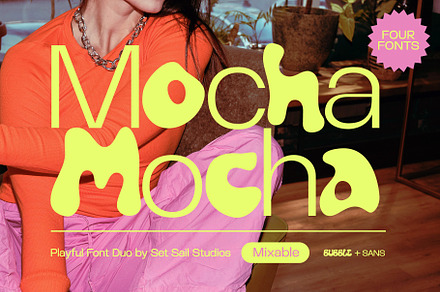
Mocha Bubble+Sans Font Duo
A font duo pairing a rounded bubble display face with a clean supporting sans, in a playful confectionery register.
Bubble letterforms carry strong associations with sweetness and childhood, which the neutral companion keeps from becoming overwhelming.
- Rounded display plus neutral sans
- Alternates and ligatures
Made for
- Confectionery and food packaging
- Childrens products and branding
- Event and party graphics
- Social and merch design